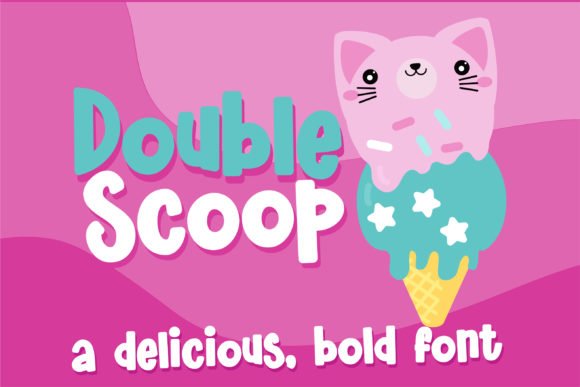
Introduction to Double Scoop Font
Double Scoop is a sweet and delicious handwritten font with a cool twist.
Get inspired by its unique feel, and turn any design into a true standout .